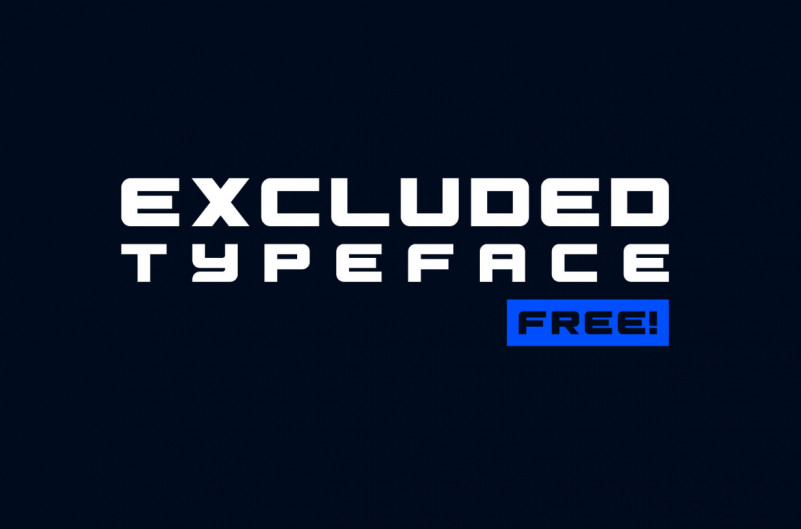
Excluded Typeface
Hello guys. This is a new straight font with futuristic and minimalistic look. Due to the angularity and high contrast, the font combines rigidity, sharpness and elegance. This font is perfect to add a hand drawn touch to any project! Introducing Excluded Display Font. It’s designed and shared by Foyez Uddin. This font is controlled and modern touch. Hard line balance and smooth curves. It’s works great in any branding, logos, magazines, films. The different weights give you full range to explore a whole host of applications, while the outlined fonts give a real modern feel to any project.